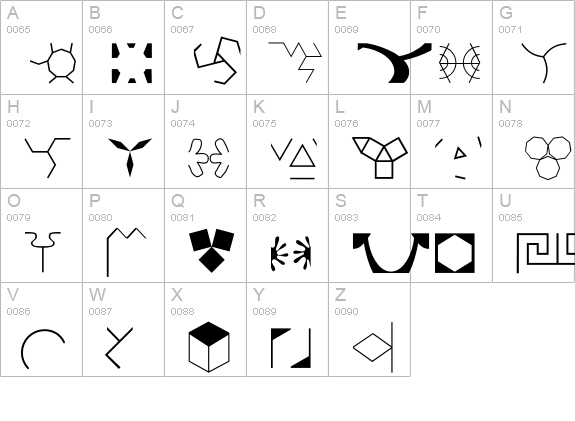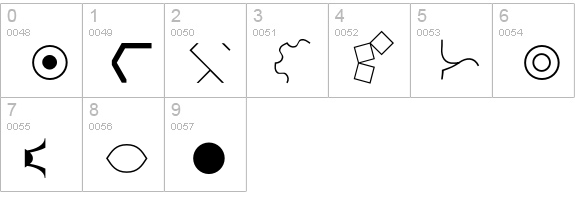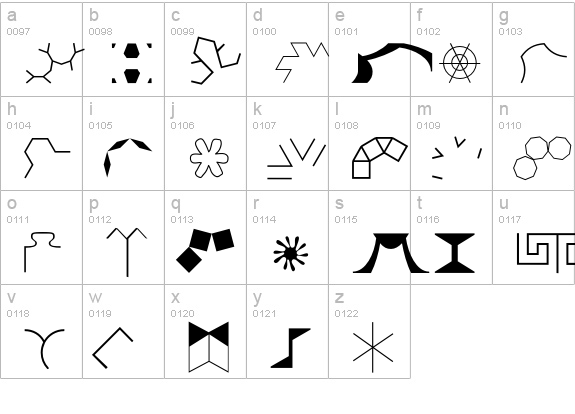
Dingsda Font Details
The Dingsda font is a whimsical and playful typeface that is perfect for adding a touch of fun to your designs. With its unique characters and quirky style, Dingsda is sure to make a statement. This font is free for personal and commercial use, making it a versatile option for a wide range of projects. You can easily download the Dingsda font for free at FontsMarket.com and start using it in your designs today. Whether you're creating invitations, posters, or social media graphics, Dingsda is a fantastic choice for adding a creative touch to your work.